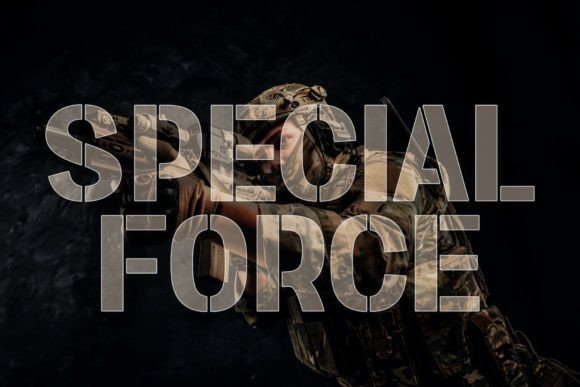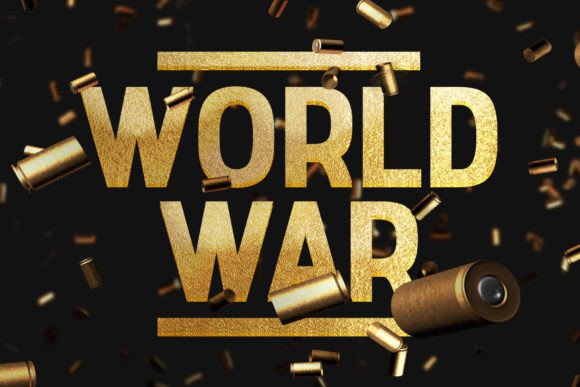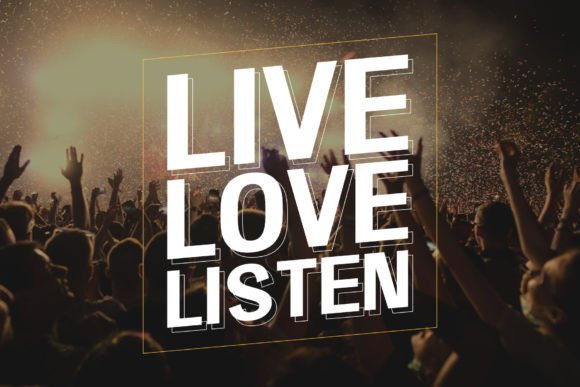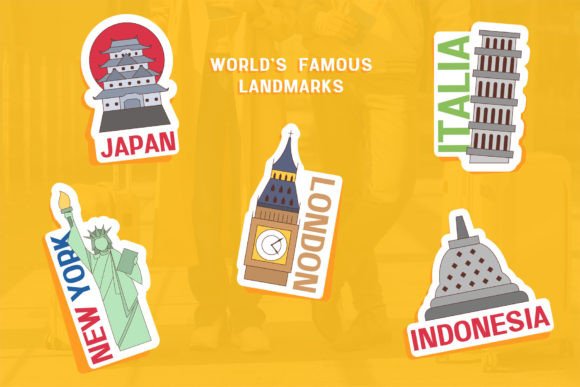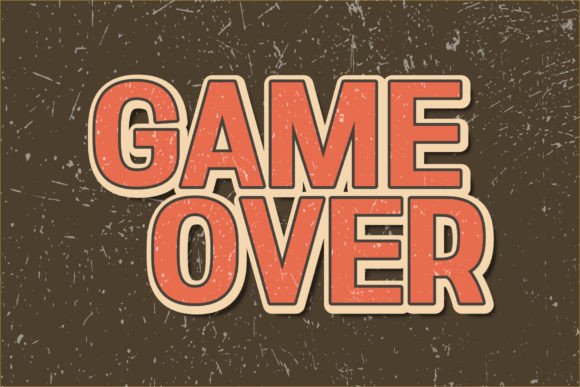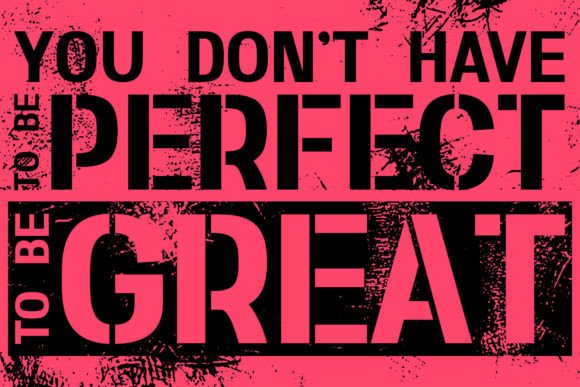
Introducing Graveland Font: The Perfect Blend of Elegance and Sportiness
In the world of design, fonts play a crucial role in conveying the message and aesthetic of a brand or project. With the numerous font options available, finding the perfect one that combines style, versatility, and functionality can be a daunting task. However, if you’re looking for a font that seamlessly blends elegance and sportiness, look no further than the Graveland Font. In this article, we’ll explore the features, benefits, and uses of the Graveland Font, and why it’s an excellent addition to any designer’s toolkit.
What is Graveland Font?
GRAVELAND is a simple sans-serif font that exudes a sense of sophistication and dynamism. Its clean lines, precise curves, and balanced proportions make it an ideal choice for a wide range of design applications. Whether you’re working on a t-shirt design, brand logo, corporate font, or fashion branding project, GRAVELAND is the perfect companion to help you achieve your creative vision.
Key Features of Graveland Font
So, what makes GRAVELAND stand out from the rest? Here are some of its key features:
- Elegant and Sporty Design: GRAVELAND’s unique design combines the elegance of a high-end fashion brand with the sportiness of a professional athletic team. This versatility makes it perfect for a wide range of projects.
- Sleek and Modern Look: GRAVELAND’s sleek and modern design ensures that your projects stand out from the crowd. Its clean lines and precise curves give it a fresh and contemporary feel.
- Versatile and Adaptable: Whether you need a font for a casual or formal project, GRAVELAND can deliver. Its adaptability makes it an excellent choice for designers who work on diverse projects.
Uses of Graveland Font
GRAVELAND’s versatility makes it suitable for a wide range of design applications, including:
- T-Shirt Design: Create stunning t-shirt designs that are both stylish and legible with GRAVELAND.
- Brand Logo: Establish a strong brand identity with GRAVELAND’s elegant and sporty design.
- Corporate Font: Use GRAVELAND as a corporate font to convey a sense of professionalism and sophistication.
- Fashion Branding: GRAVELAND is perfect for fashion branding projects, including fashion labels, accessories, and beauty products.
Benefits of Using Graveland Font
By choosing GRAVELAND Font for your design projects, you can enjoy numerous benefits, including:
- Unique and Memorable Designs: GRAVELAND’s distinctive design ensures that your projects stand out and leave a lasting impression.
- Time-Saving: With GRAVELAND’s versatility and adaptability, you can use it across multiple projects, saving you time and effort.
- High-Quality Output: GRAVELAND’s sleek and modern design ensures that your projects look professional and high-quality.